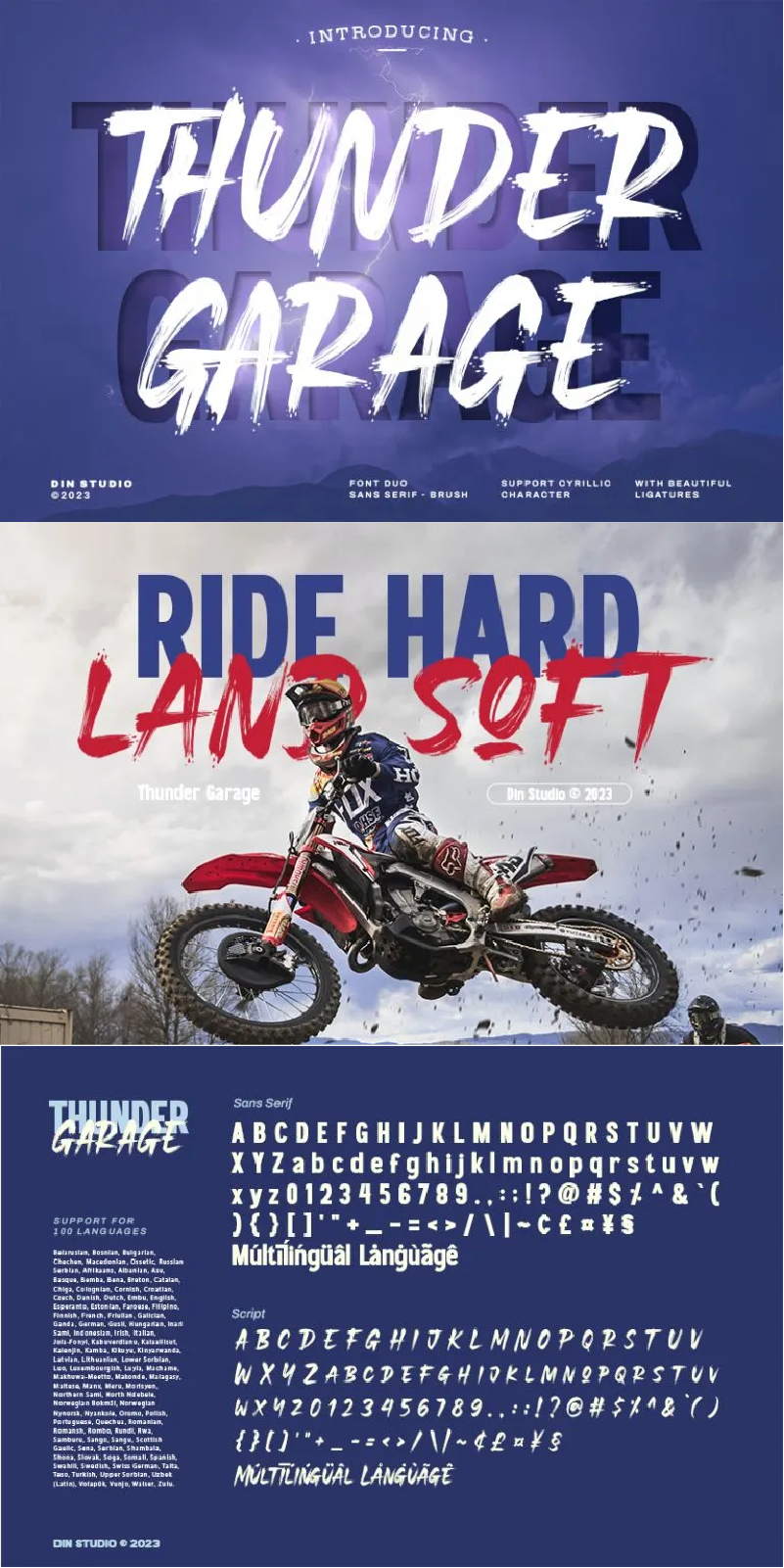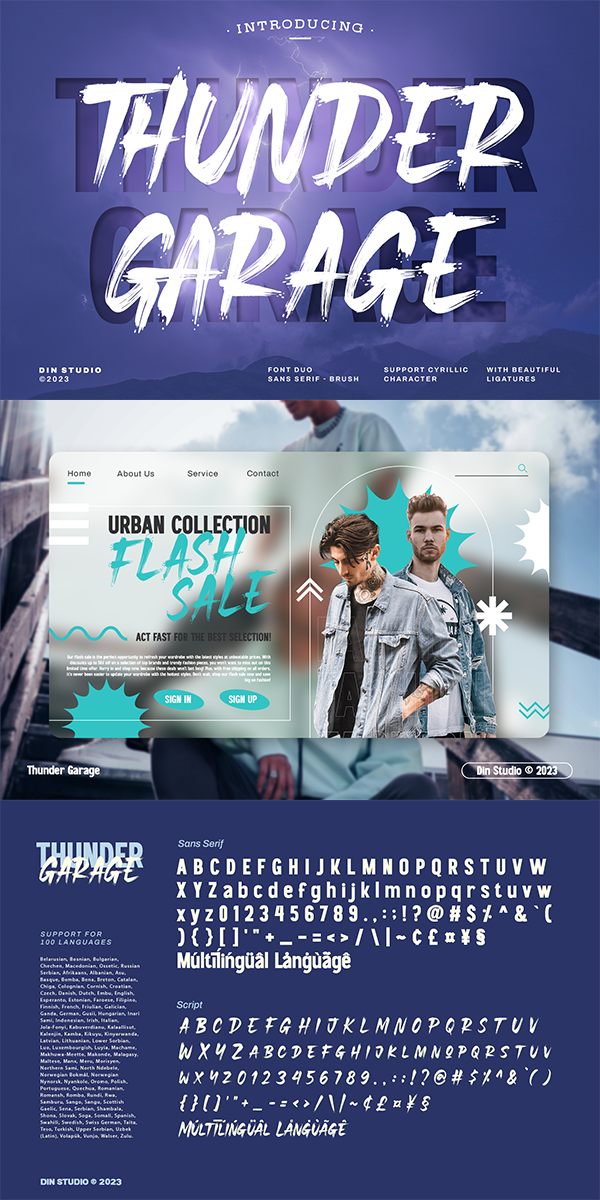
Thunder Garage Font
About Thunder Garage
Thunder Garage is a duo font combination between brush and sans serif fonts which you use together in one design. Each font is beautifully created to support one another perfectly. Using a duo font gives interesting contrast and visual variations to your designs. The brush font is made similar to a handwriting style with brush details to show you personal, informal impressions. You are free to use this duo font as either one lovely set or as separated parts based on your needs. In addition, enjoy the other features available in this font.
Thunder Garage fits best for various design projects, such as brandings, posters, banners, logos, magazine covers, quotes, headings, printed products, merchandise, social media, etc. Find out more ways to use this font by taking a look at the font preview.